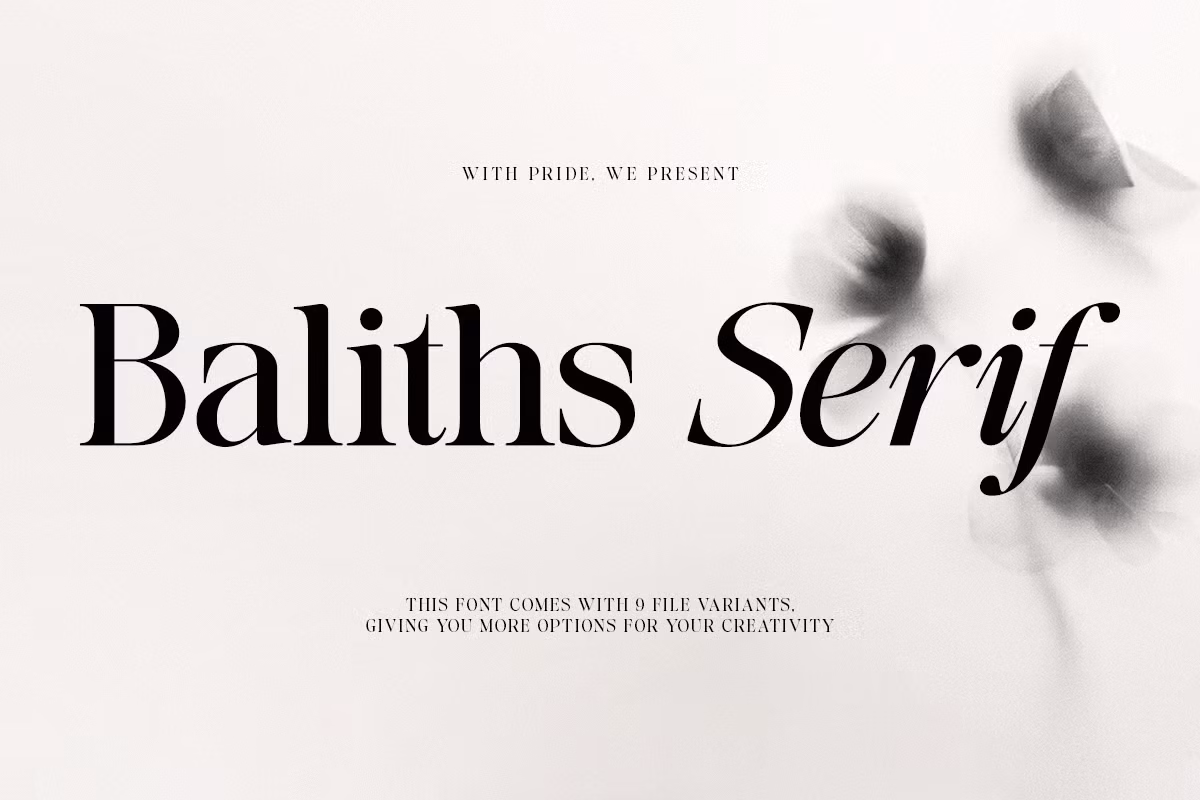
Please note that you must purchase this font family for commercial use. You can download Baliths Serif – 9 Font Files for free, strictly for personal testing purposes only. Baliths Serif is a versatile and elegant serif font family that includes 9 distinct font files, ranging from regular to bold and italic styles. Baliths Serif Font Family Free Download is perfect for a variety of design projects, including branding, editorial design, logos, and packaging.
With its classic serif structure and modern proportions, this font family is ideal for both print and digital design. The 9 different styles provide flexibility, making it easy to create professional, well-balanced layouts. It includes uppercase and lowercase letters, numerals, punctuation, and multilingual support, ensuring versatility across creative applications.
Whether you're creating a refined brand identity, designing a sophisticated magazine layout, or working on professional marketing materials, Baliths Serif adds elegance and clarity to your typography.